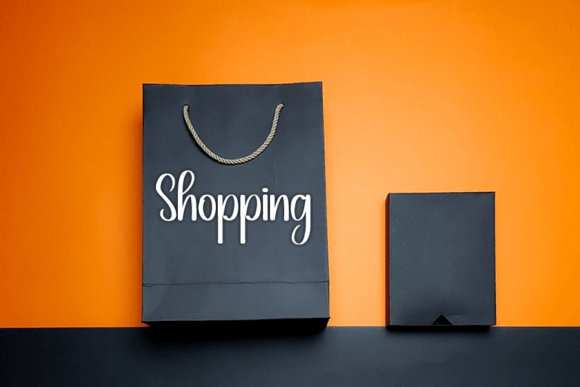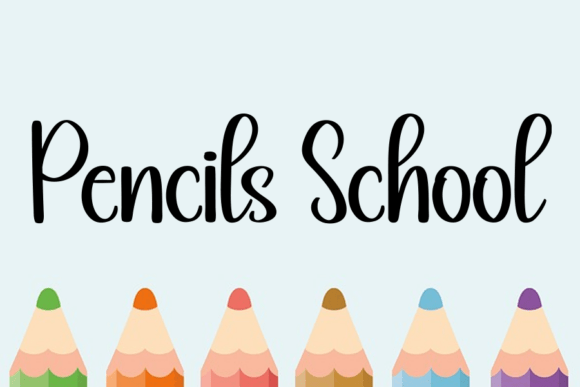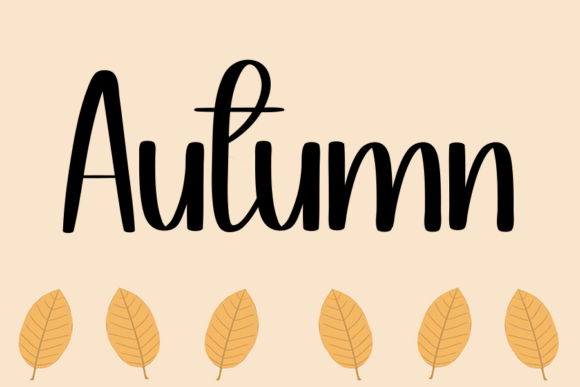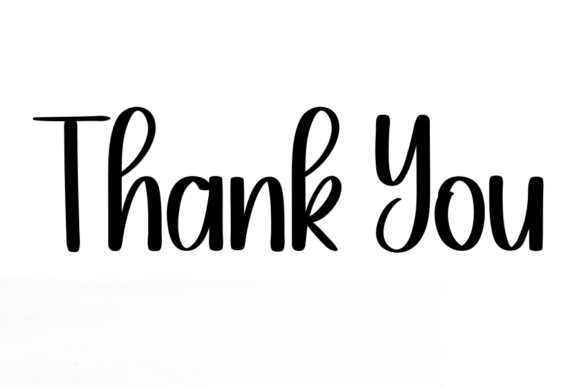
Introducing Handwork Font: The Sweet and Cursive Handwritten Font for Elegant Designs
Are you looking for a font that can add a touch of elegance and romance to your designs? Look no further than Handwork Font, a sweet and cursive handwritten font that is perfect for a variety of design projects. With its gentle and flowing curves, Handwork Font is sure to make your designs stand out and leave a lasting impression.
What Makes Handwork Font Special?
Handwork Font is a unique and beautiful font that is designed to add a joyful and romantic touch to your designs. Its cursive and handwritten style gives it a personal and intimate feel, making it perfect for projects that require a touch of elegance and sophistication. Whether you’re working on a branding project, designing a logo, or creating wedding materials, Handwork Font is the perfect choice.
Handwork Font is a versatile font that can be used for a wide range of design projects. Its elegant and cursive style makes it perfect for:
- Branding: Use Handwork Font to create a unique and memorable brand identity that stands out from the crowd.
- Logo Design: Create a stunning logo that showcases your brand’s personality and style with Handwork Font.
- Wedding Materials: Add a touch of romance and elegance to your wedding designs, including invitations, programs, and decorations.
- Greeting Cards: Create beautiful and heartfelt greeting cards for special occasions, such as birthdays, anniversaries, and holidays.
- Fashion and Lookbook: Use Handwork Font to add a touch of elegance and sophistication to your fashion designs and lookbooks.
- Marketing Promotion: Create eye-catching marketing materials, such as brochures, flyers, and posters, that showcase your brand’s style and personality.
Why Choose Handwork Font?
There are many reasons why Handwork Font is the perfect choice for your design projects. Here are just a few:
- Elegant and Cursive Style: Handwork Font features a beautiful and elegant cursive style that adds a touch of sophistication to your designs.
- Unique and Handwritten: Handwork Font is a handwritten font that has a unique and personal feel, making it perfect for projects that require a touch of elegance and romance.
- Versatile: Handwork Font can be used for a wide range of design projects, from branding and logo design to wedding materials and greeting cards.
- Easy to Read: Handwork Font is easy to read and understand, making it perfect for projects that require clear and concise communication.
Tips for Using Handwork Font
Here are a few tips for using Handwork Font in your design projects:
- Use it as a Title Font: Handwork Font is perfect for use as a title font, adding a touch of elegance and sophistication to your designs.
- Pair it with Other Fonts: Handwork Font pairs well with other fonts, such as sans-serif fonts, to create a unique and visually appealing design.
- Experiment with Colors: Handwork Font looks great in a variety of colors, so don’t be afraid to experiment and find the perfect color for your design.
Handwork Font is a beautiful and elegant font that is perfect for designers and crafters looking to add a touch of sophistication and romance to their designs. With its unique and handwritten style, Handwork Font is sure to make your designs stand out and leave a lasting impression. Whether you’re working on a branding project, designing a logo, or creating wedding materials, Handwork Font is the perfect choice.